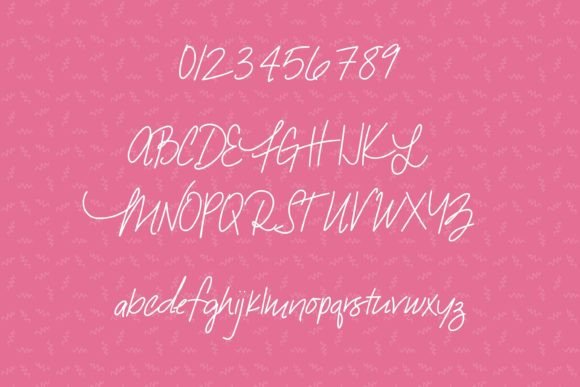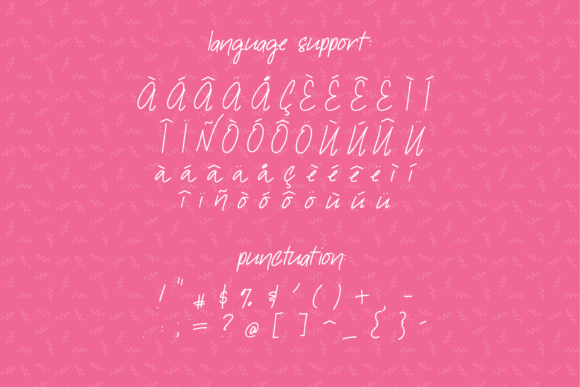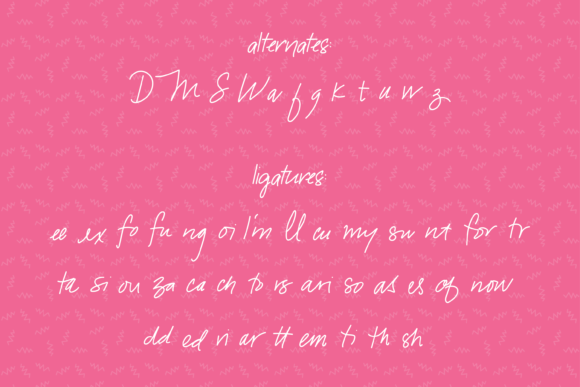
Snarky Flamingo Font
About Snarky Flamingo Font
Introducing the Snarky Flamingo Font, a playful and fun handwritten typeface that brings a refreshing dose of personality to your designs. If you’ve ever found your fonts to be a bit too serious, the Snarky Flamingo Font is the perfect remedy. With its whimsical charm and lively lettering, this font is tailored to infuse your projects with flair and pizzazz.
In a world often dominated by formal and structured fonts, the Snarky Flamingo Font stands out as a breath of fresh air. Its playful design captures the essence of a carefree spirit, making it an excellent choice for those looking to inject a touch of personality into their creative endeavors.
One of the notable features of the Snarky Flamingo Font is its handwritten style, which exudes a sense of authenticity and individuality. Each character carries a unique charm, as if crafted by hand with a playful flourish. This hand-lettered quality makes it particularly appealing for projects where a personalized touch is desired.
Whether you’re working on a website, a brochure, or a personal letter, the Snarky Flamingo Font lends itself well to various applications. In the realm of web design, it can add a fun and engaging element to your text, making your content more visually appealing and memorable.
For brochures and promotional materials, the Snarky Flamingo Font becomes a valuable asset for grabbing attention. Its whimsical nature draws the eye, ensuring that your message is not only read but also enjoyed. This font is particularly effective for brands or projects that want to communicate a sense of approachability and creativity.
Even in personal correspondence, the Snarky Flamingo Font allows you to express yourself with a touch of flair. Whether you’re crafting invitations, thank-you notes, or any other letter, this font adds a playful twist that elevates your messages.
In summary, the Snarky Flamingo Font is more than just a typeface; it’s a creative tool that empowers you to break free from the seriousness of conventional fonts. Spice up your next project with the Snarky Flamingo Font and let its lively and whimsical charm transform your text into an expression of fun and individuality.